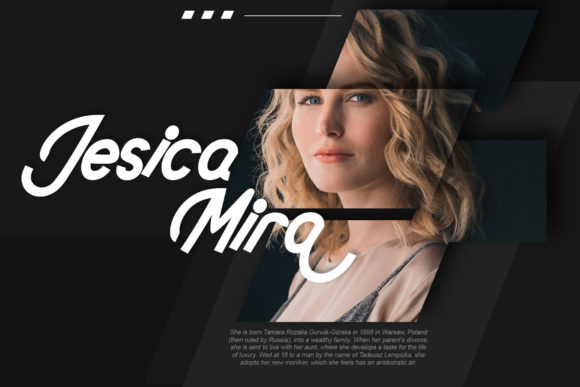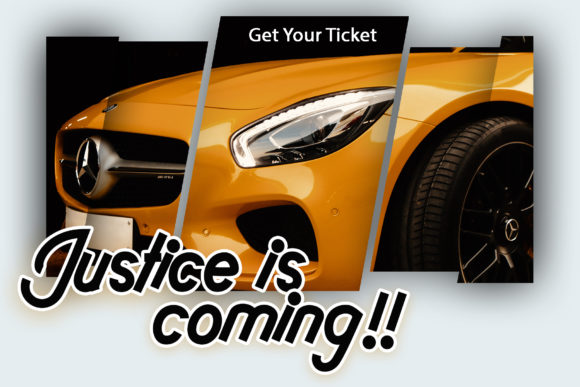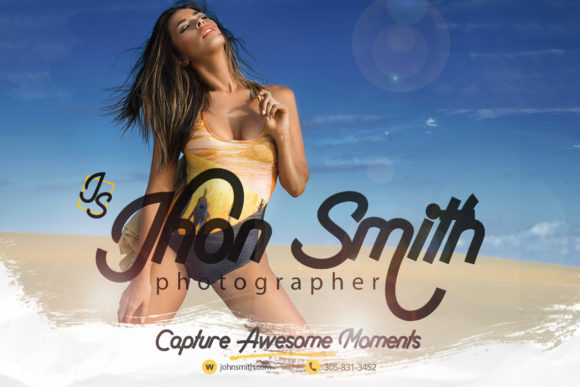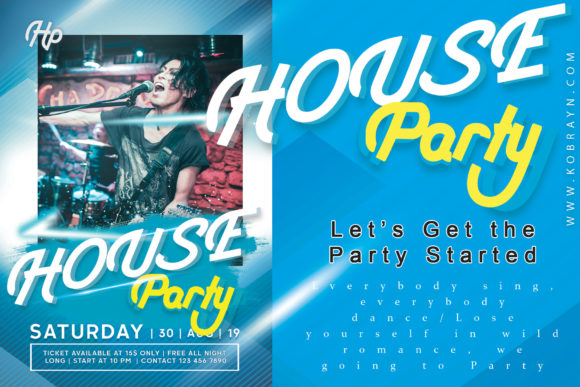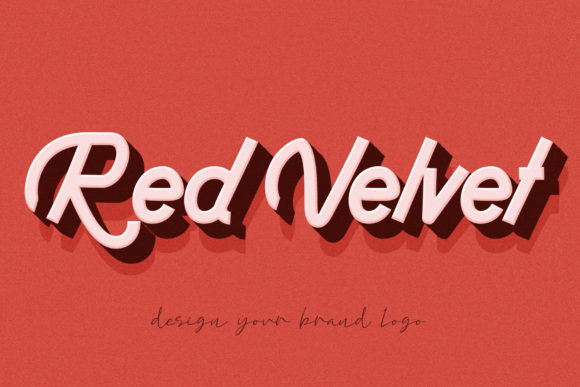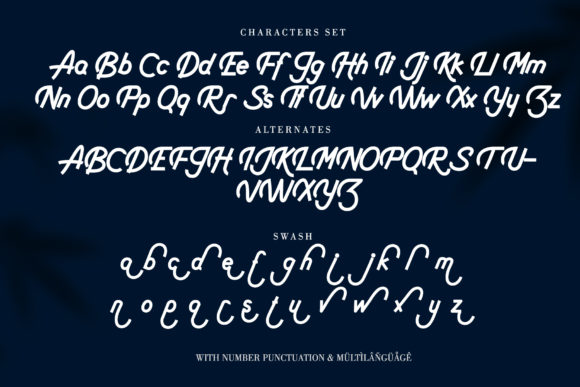
Introduction to Kobryan Font
Remember the moment when you stumbled upon the perfect font for your creative project? The one that elevates your design from good to great? For designers, finding that elusive font can be a game-changer. It’s like discovering a secret ingredient that adds a touch of magic to your work.
Enter the Kobryan Font, a classy script font that’s sure to leave a lasting impression. With its fantastic swashes and luxurious feel, this design resource is a must-have for any creative project. Whether you’re working on a high-end branding project or a simple invitation, the Kobryan Font adds a level of sophistication that’s hard to resist.
Honest Review: Kobryan Font
I recently came across the Kobryan Font, a free download that caught my attention due to its unique design. As a designer, I’m always on the lookout for high-quality design resources to elevate my creative projects.
Here are some of the things that work well with the Kobryan Font:
- ✨ Unique and stylish design that can add a touch of elegance to any project.
- ✨ High-quality font that looks great on various backgrounds, including transparent backgrounds.
- ⚠️ Limited font styles and weights, which may not be suitable for complex design projects.
- ⚠️ Not ideal for use in small font sizes, as the letters may become difficult to read.
Overall, I’d say the Kobryan Font is a solid addition to any designer’s toolkit. While it may not be perfect, it’s a great option for designers looking for a unique and high-quality font to add some flair to their creative projects.
The Kobryan Font is perfect for a variety of creative projects, including:
- Logo design.
- Brochure design.
- Infographic design.
- Business card design. Alternatives to Kobryan Font
Montserrat is a modern sans-serif font suitable for creative projects that require a clean and minimalist design. It features a high-quality design and is available for free download. Montserrat is ideal for use in logos, headings, and titles. When compared to Kobryan Font, Montserrat has a more geometric and modern feel.
Open Sans is a popular and versatile sans-serif font that works well for various design resources. It has a transparent background and is highly customizable. Open Sans is suitable for use in body text, headings, and titles. Compared to Kobryan Font, Open Sans has a more rounded and friendly feel.
Lato is a modern sans-serif font that is perfect for creative projects that require a high-quality design. It features a clean and elegant design and is available for free download. Lato is ideal for use in headings, titles, and body text. When compared to Kobryan Font, Lato has a more sophisticated and refined feel.
Arial is a classic sans-serif font that is widely used in design resources. It has a transparent background and is highly customizable. Arial is suitable for use in body text, headings, and titles. Compared to Kobryan Font, Arial has a more traditional and conservative feel.